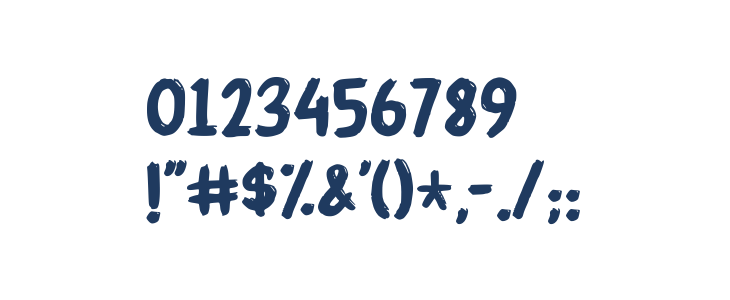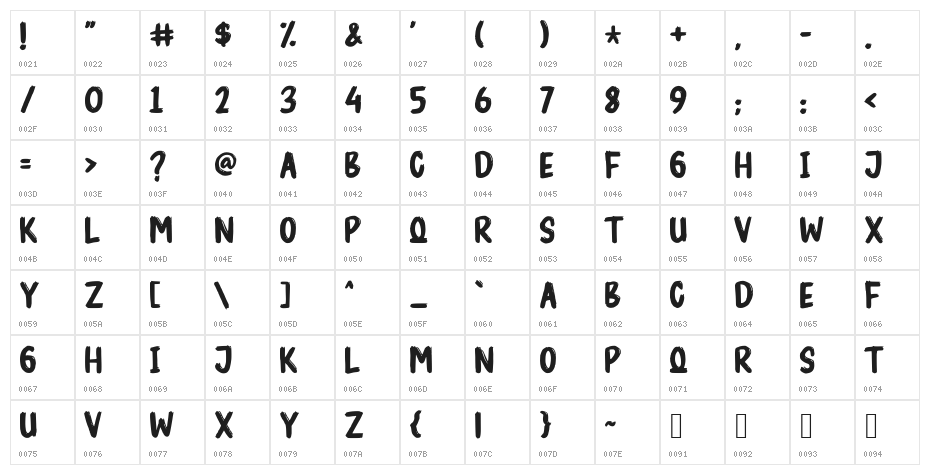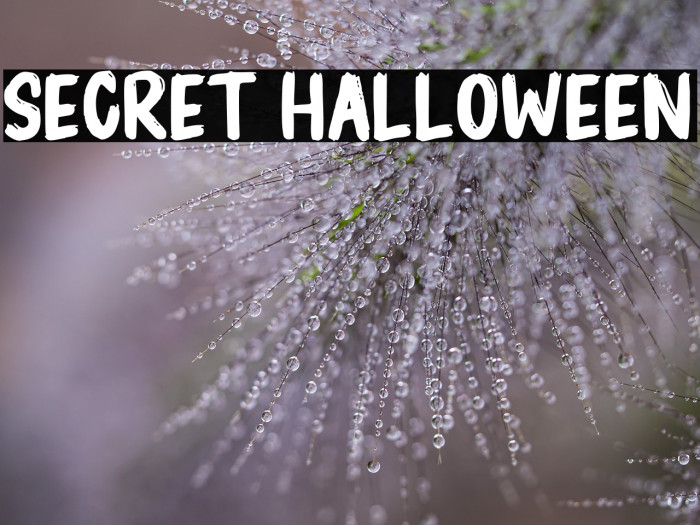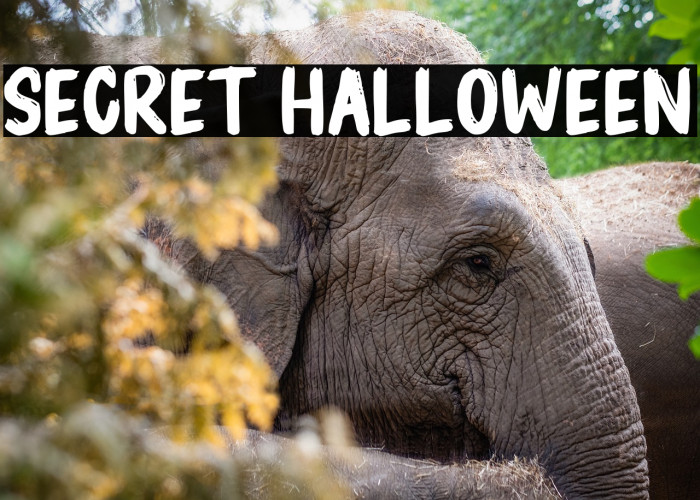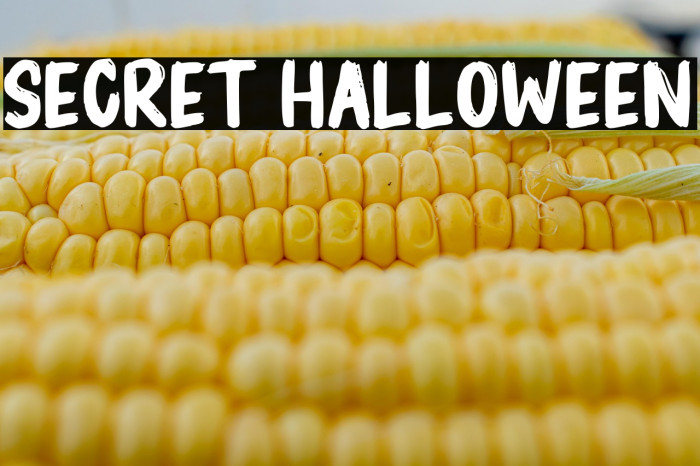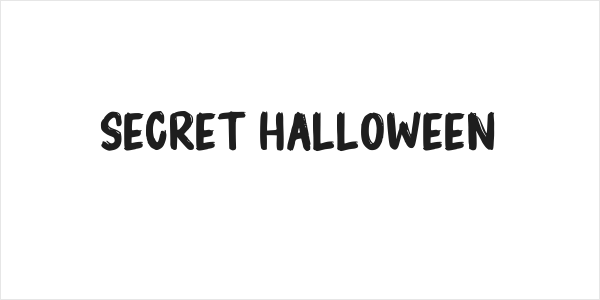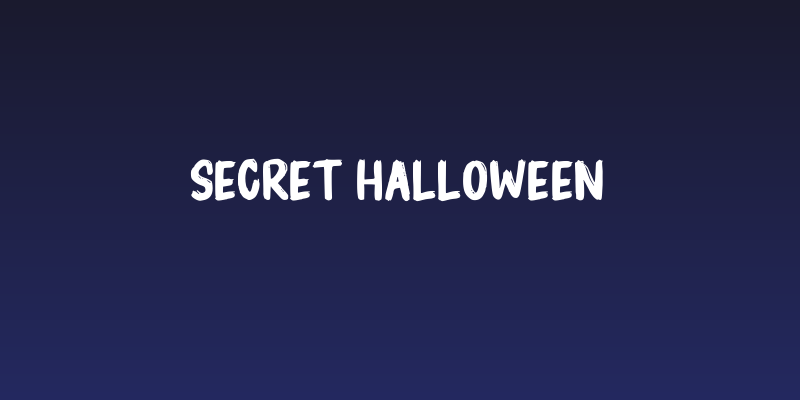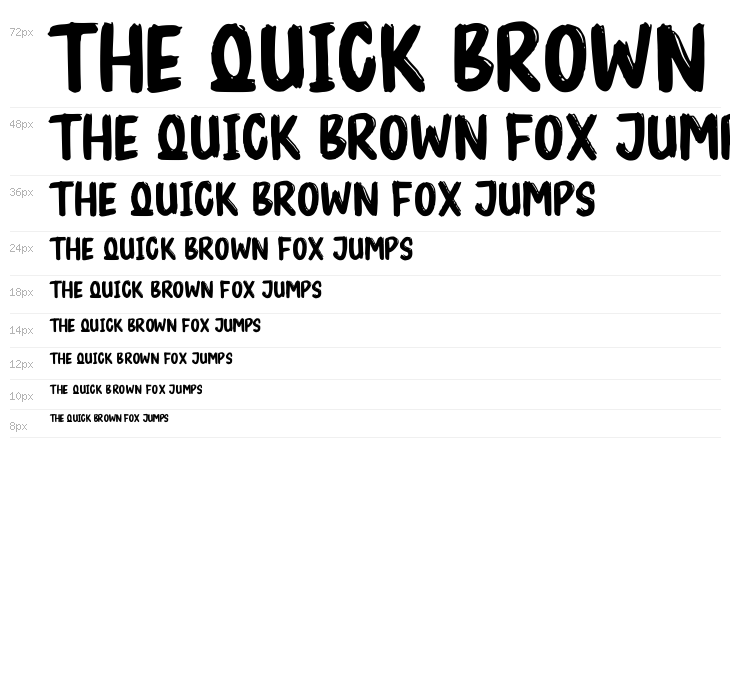
Secret Halloween Font
Secret Halloween Description
This font features a bold, hand-drawn style with a playful and slightly spooky aesthetic, perfect for Halloween-themed projects. The characters are thick and uneven, with a brush-like texture that adds a sense of movement and energy. The uppercase and lowercase letters maintain a consistent style, while the numbers and special characters complement the overall design. The font's irregular edges and dynamic strokes give it a unique, handcrafted feel, making it ideal for creative and festive designs.
| Proposed Projects | Ideal for Halloween invitations, posters, party decorations, and themed merchandise. |